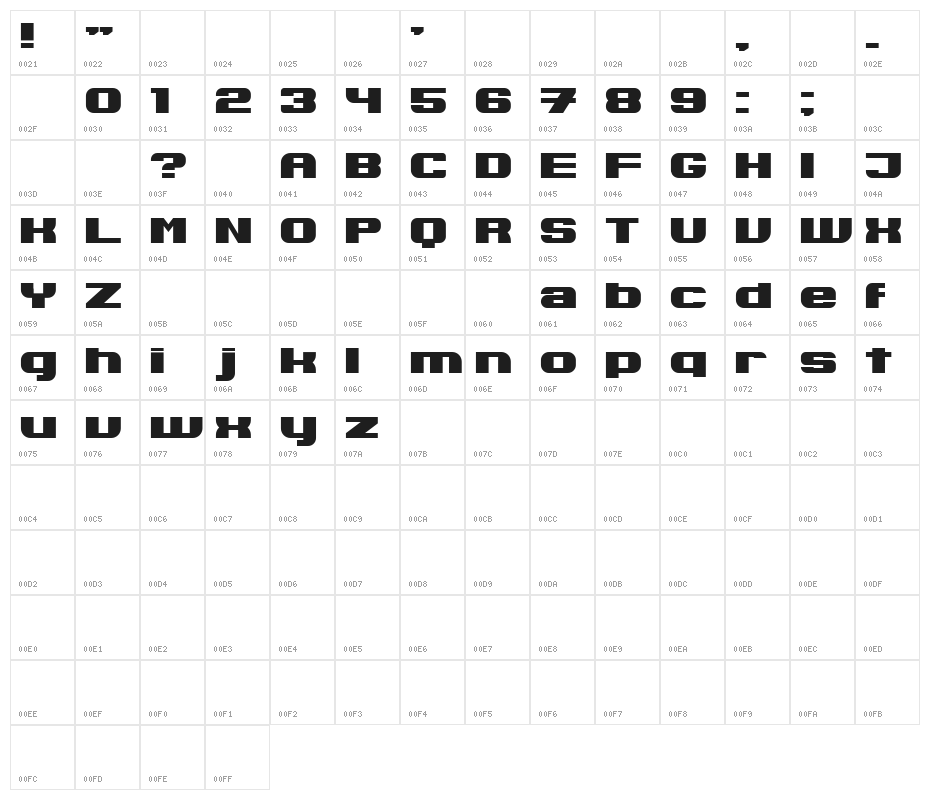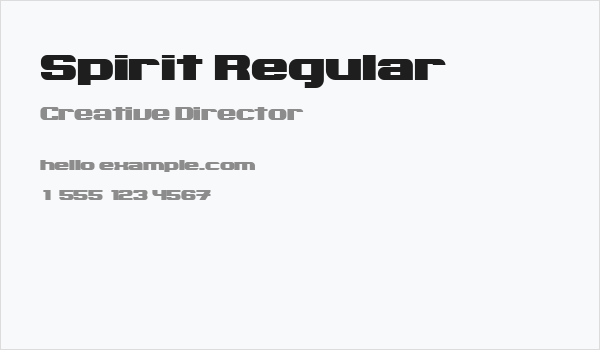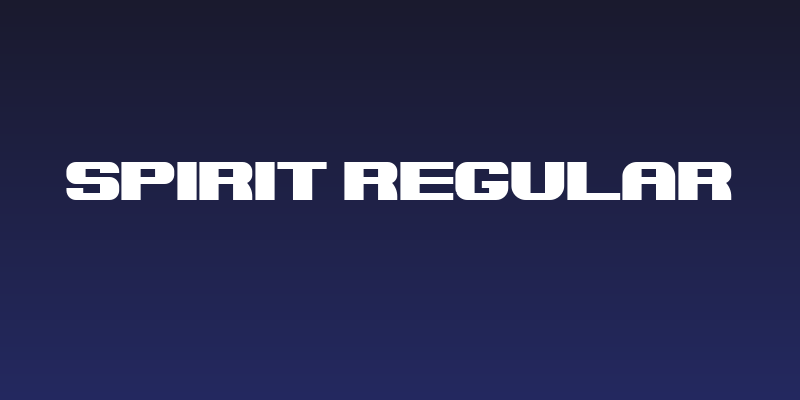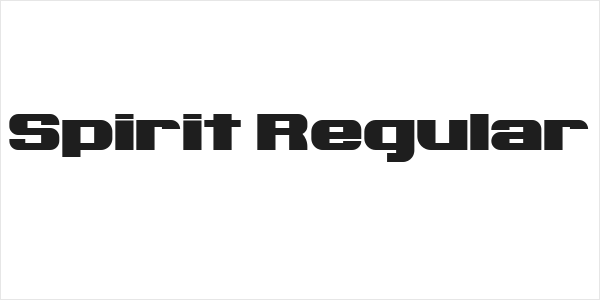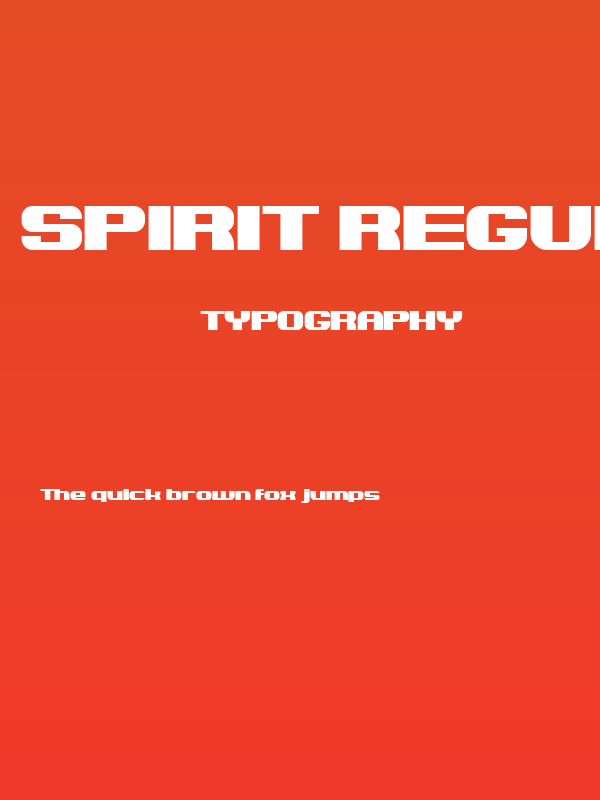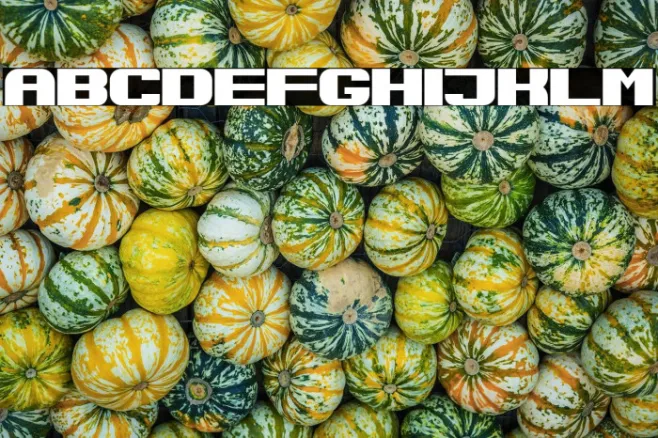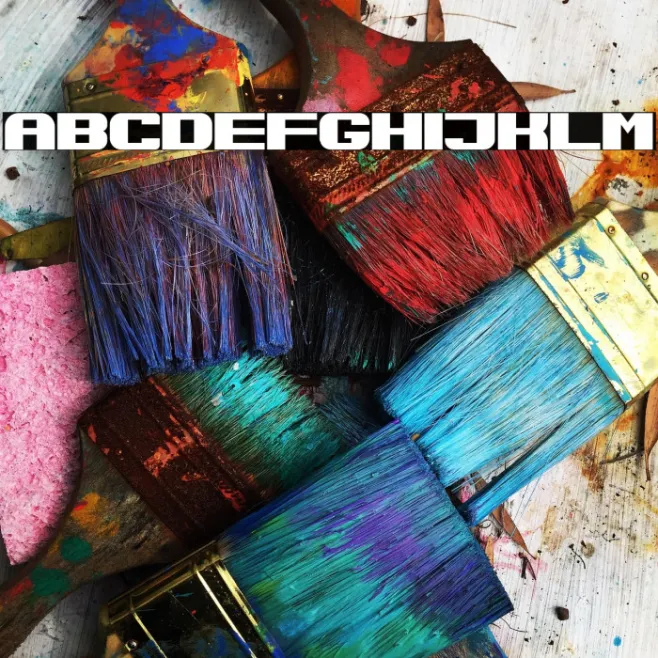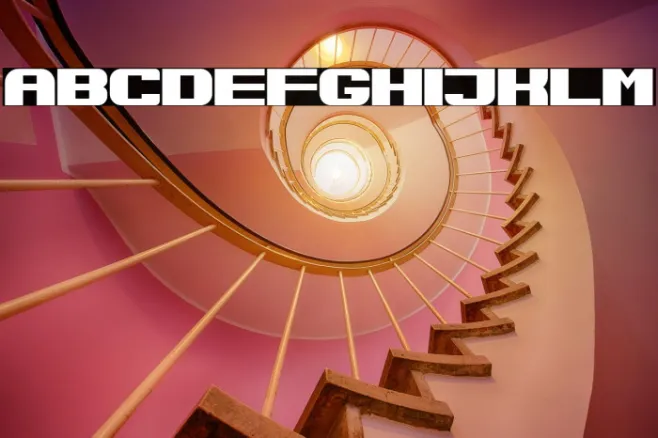
Spirit Regular Font
Spirit Regular Description
This font features a bold and geometric design with a strong presence. The characters are blocky and robust, with a modern and industrial feel. The uppercase and lowercase letters maintain a consistent width, giving the typeface a uniform appearance. The numbers are equally bold, ensuring readability and impact. Special characters are designed with the same boldness, making them stand out. The overall style is suitable for projects that require a strong and assertive visual impact.
| Proposed Projects | Ideal for branding, posters, headlines, and any design needing a strong visual impact. |